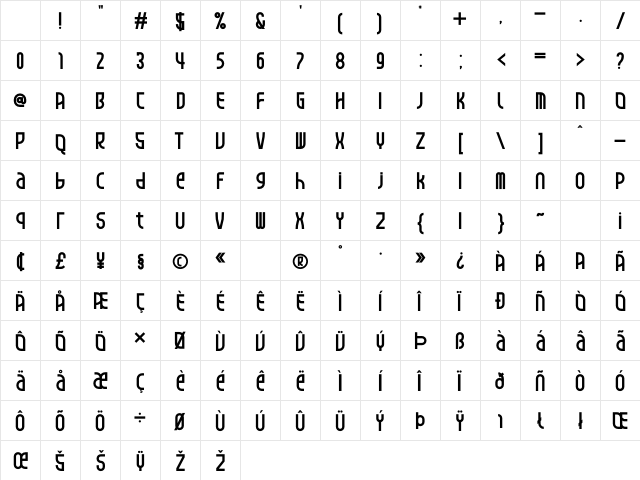
Royagna Regular
Designer: Rvandtype
Design Context for Royagna
Royagna is a composed and adaptable typeface that performs quietly and consistently across a wide range of design contexts.